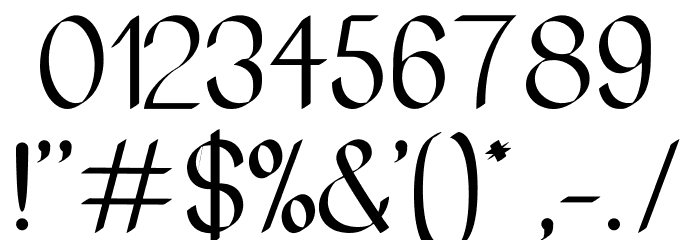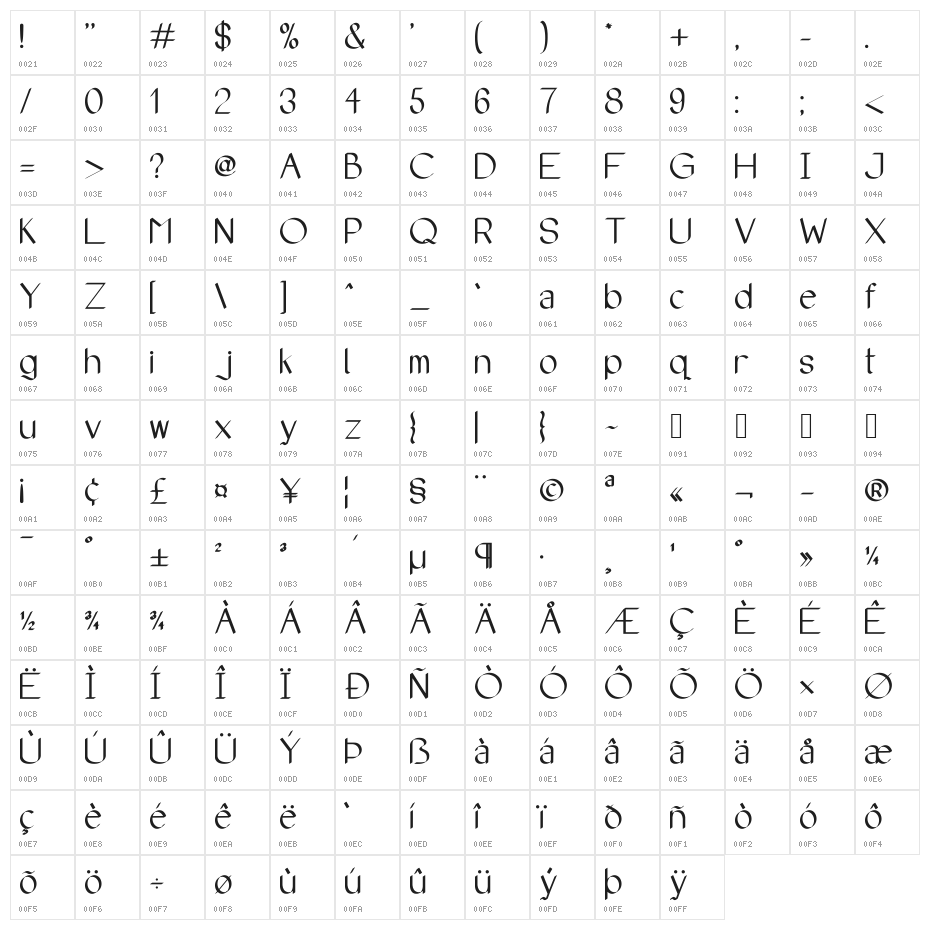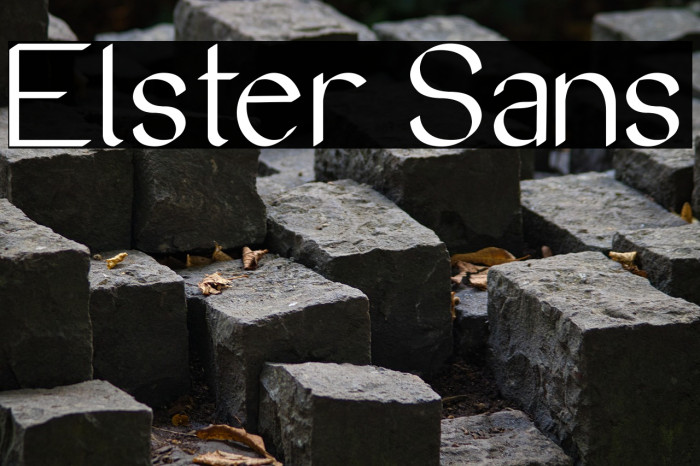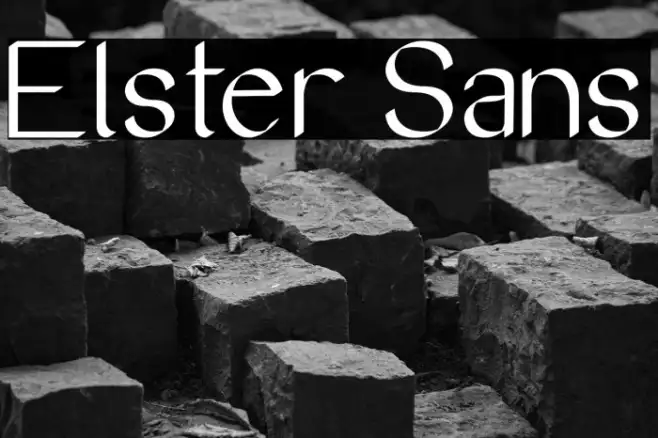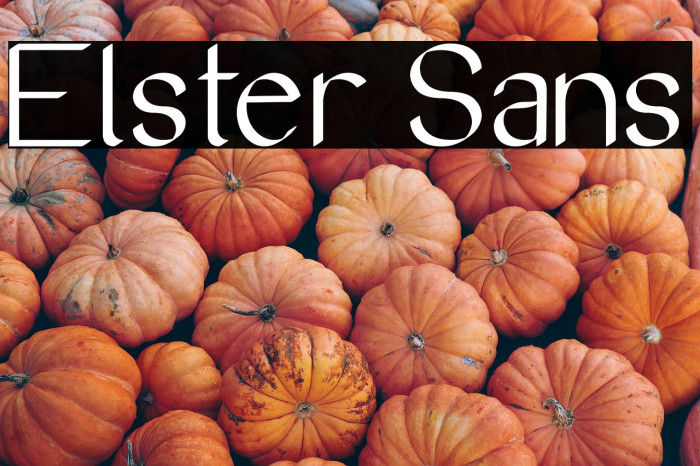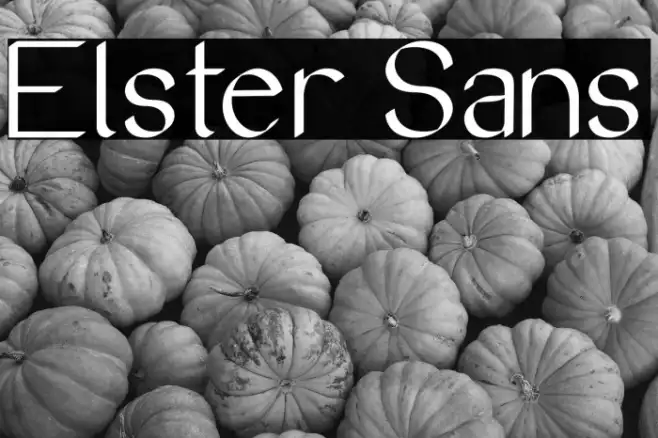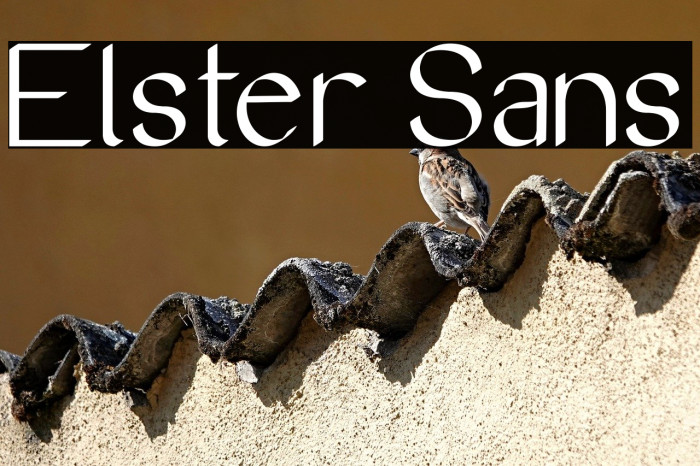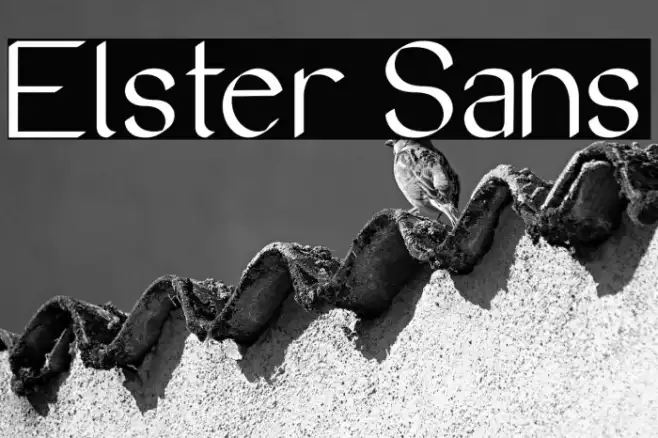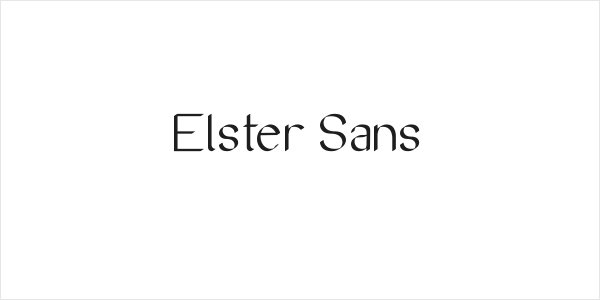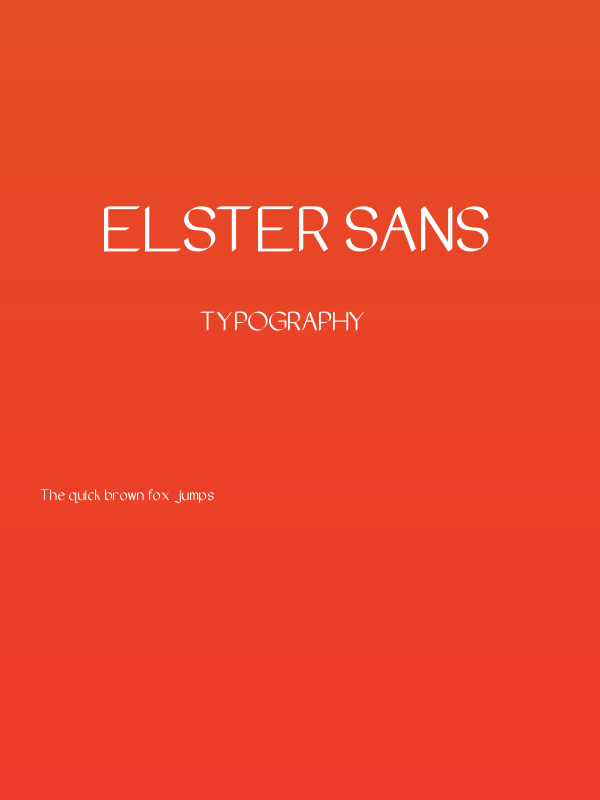
Elster Sans Font
Elster Sans Description
This font features a unique blend of geometric and organic shapes, creating a distinct and modern appearance. The uppercase letters are characterized by sharp angles and clean lines, while the lowercase letters introduce subtle curves, adding a touch of elegance. The numerals are bold and easily readable, maintaining the font's overall aesthetic. Special characters are designed with the same attention to detail, ensuring consistency across all glyphs. This font's versatility makes it suitable for a variety of design applications.